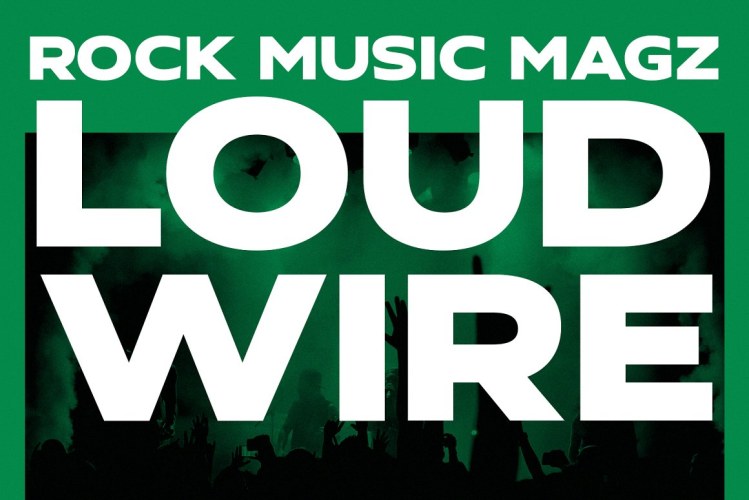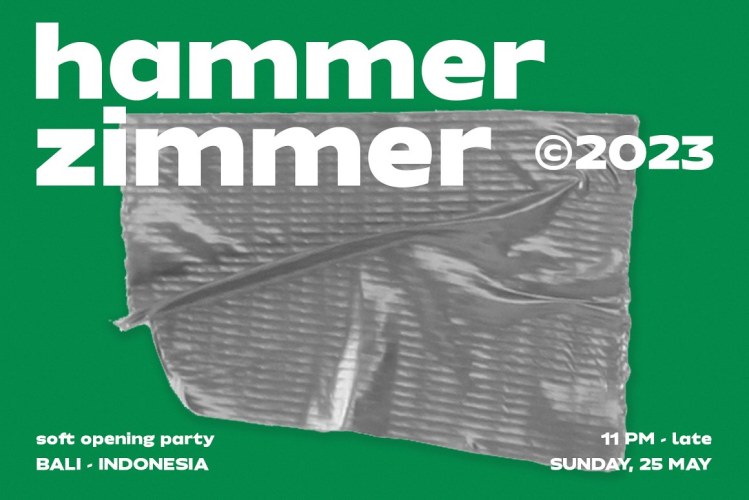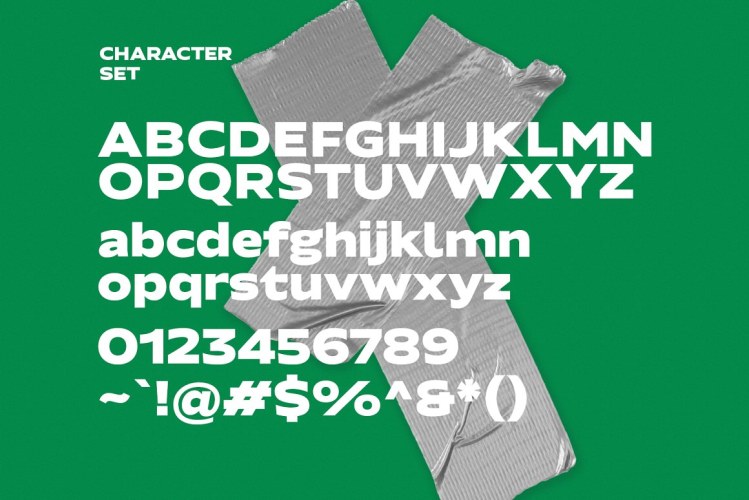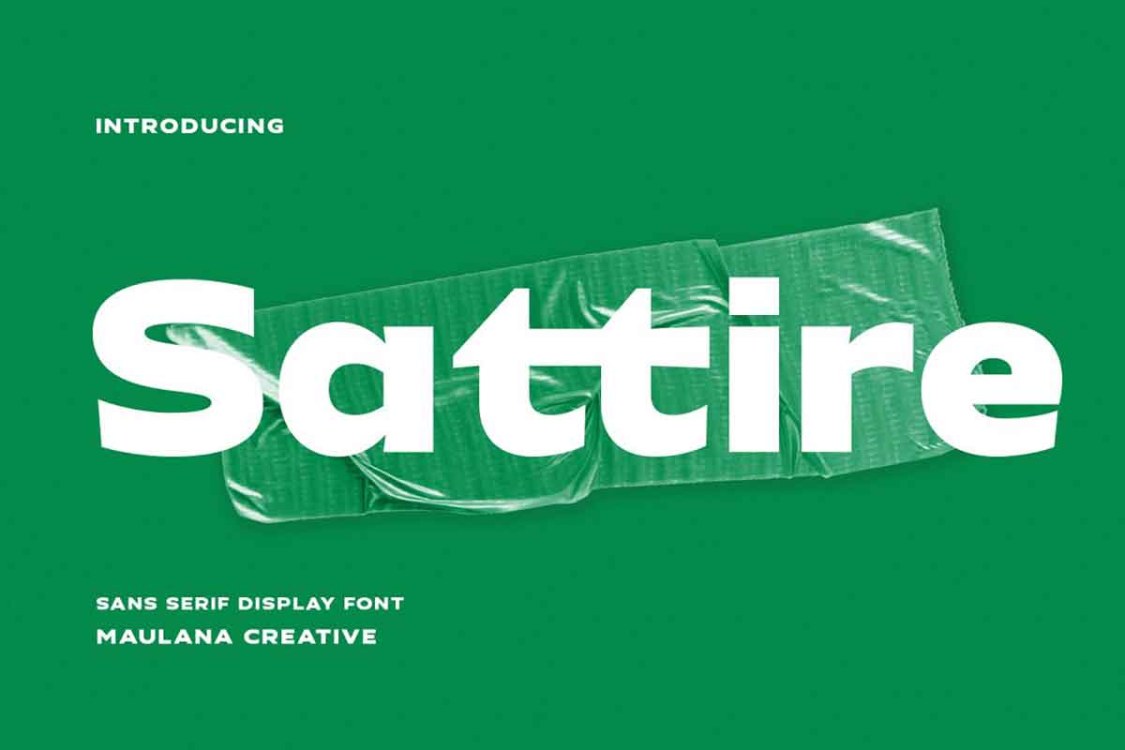
Sattire Expanded Sans Display Font
Sattire is a casual modern expanded sans display font. Bold stroke, fun character with a bit of ligatures and alternates. To give you an extra creative work. Sattire font support multilingual more than 100+ language. This font is good for logo design, Social media, Movie Titles, Books Titles, a short text even a long text letter and good for your secondary text font with script or serif. Make a stunning work with Sattire font.
Sattire Expanded Sans Display Font is a Display Fonts font that brings a professional and versatile look to your projects. Sattire is a casual modern expanded sans display font.